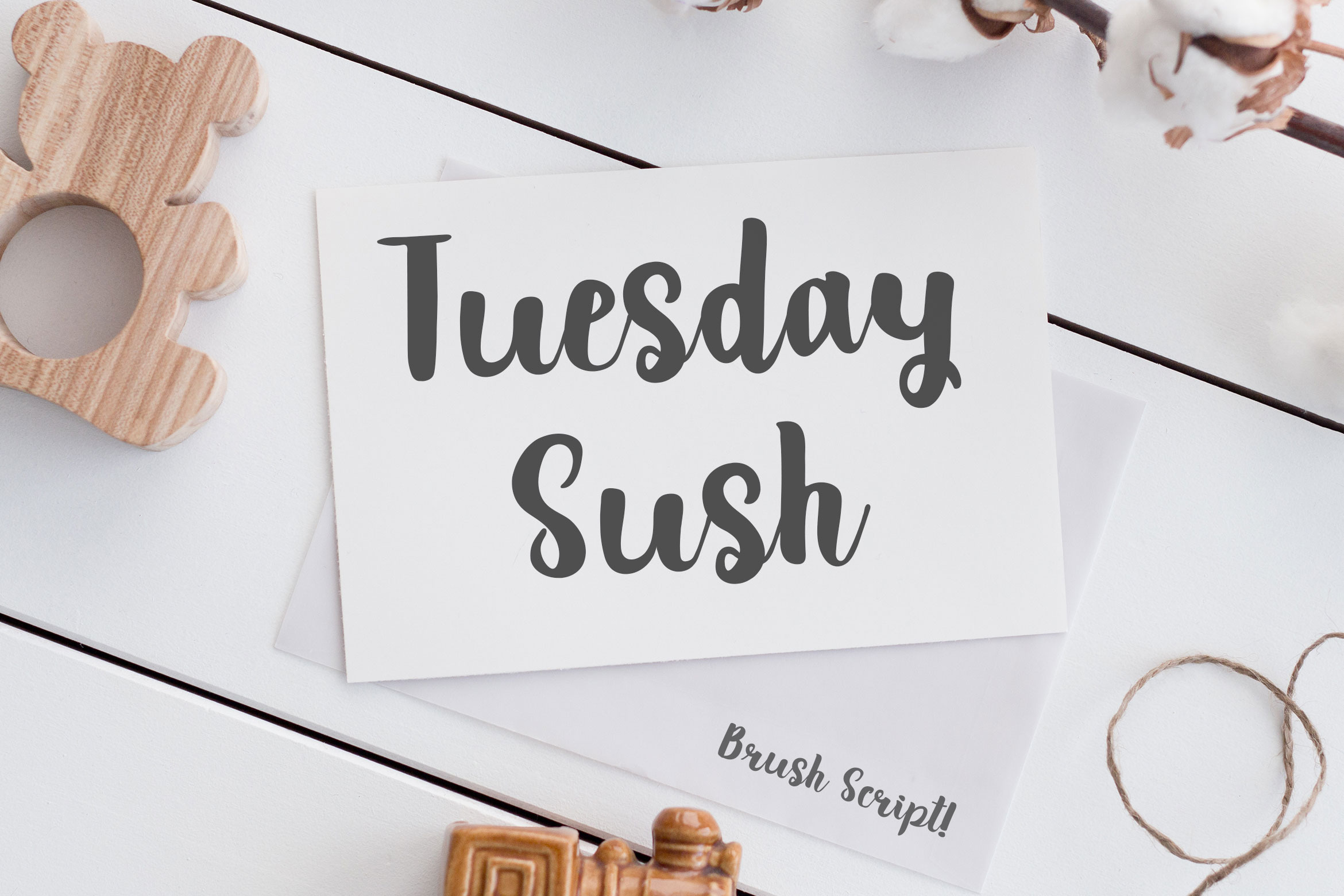
Tuesday Sush - Brush Script Font
Introducing Tuesday Sush - Brush Script Font, handwritten with large brush pen. beautiful font for crafts, branding, invitations, cloths design and many more.